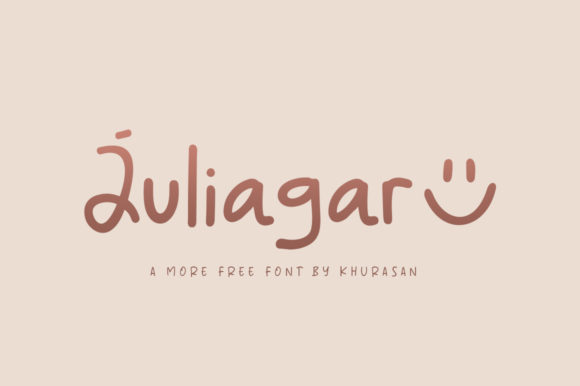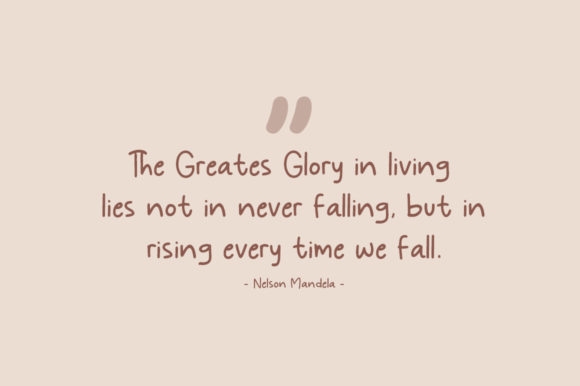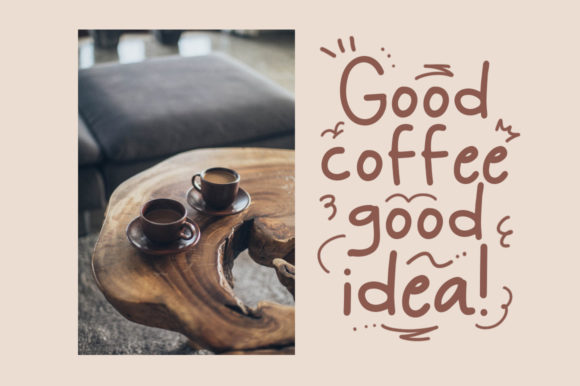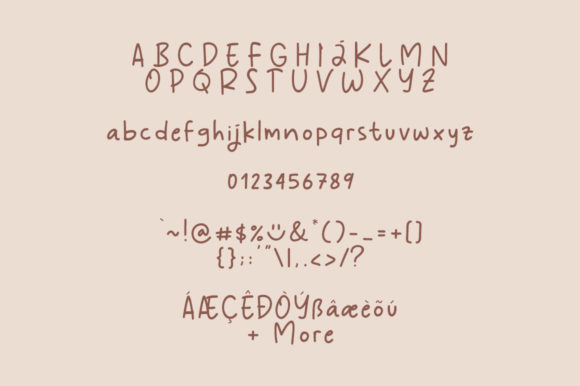
Juliagar
About Juliagar Font
Juliagar is an organic and friendly handwritten font. No matter the topic, this font will be an incredibly asset to your fonts’ library, as it has the potential to elevate any creation.